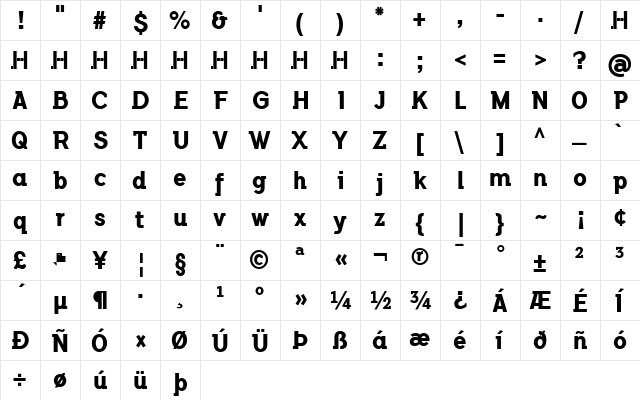
Flamante SemiSlab Bold
| Foundry | deFharo |
| Designer | Fernando Haro |
Design Context for Flamante SemiSlab Typeface
Flamante SemiSlab features prominent, blocky serifs that give it a confident, grounded presence — equally at home in editorial settings and bold branding work. Its bold stroke weight gives it real presence on the page.
Suited to magazines, political campaign materials, bold packaging, and any setting where authority matters.
Pro Tip: Use Flamante SemiSlab for headlines and subheadings where its slab serifs can make an impression. It also holds up well in mid-size body copy thanks to its sturdy construction.